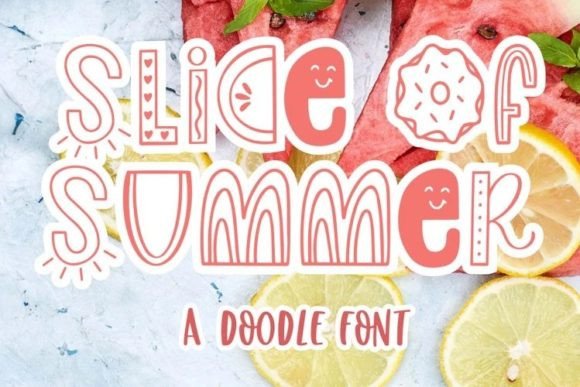
Welcome to Slice of Summer, a delightful decorative font family that ignites a burst of joy and vibrancy into your summer designs. With Slice of Summer, you'll dive into a whimsical world where imagination and creativity run wild.
Slice of Summer's playful and cheerful personality is sure to capture hearts. Each letter dances with a unique charm, evoking the warmth of sunny days, the laughter of beachside picnics, and the carefree spirit of summer adventures. Imagine transforming your marketing photos into captivating masterpieces, where every word dances with a summery flair.
Whether you're crafting eye-catching party invitations, designing summer-themed posters, or creating personalized gifts, Slice of Summer will transform your artistic visions into reality. Its versatility knows no bounds, making it the perfect choice for creating cheerful logos, vibrant website banners, and eye-catching social media graphics.
With Slice of Summer, the creative possibilities are endless. Let your imagination soar as you bask in the summer's glory. Embrace the playful, embrace the whimsical, and let Slice of Summer illuminate your designs with its radiant summer charm.